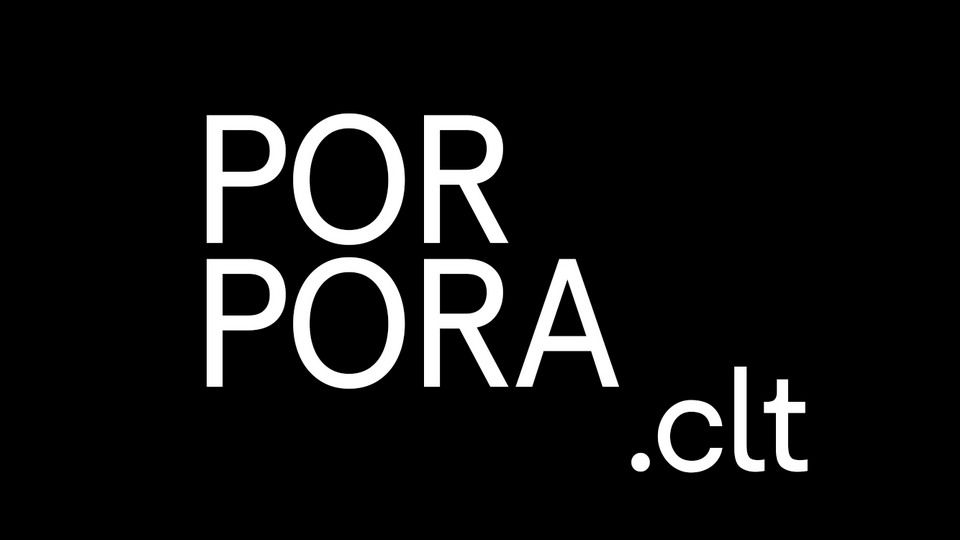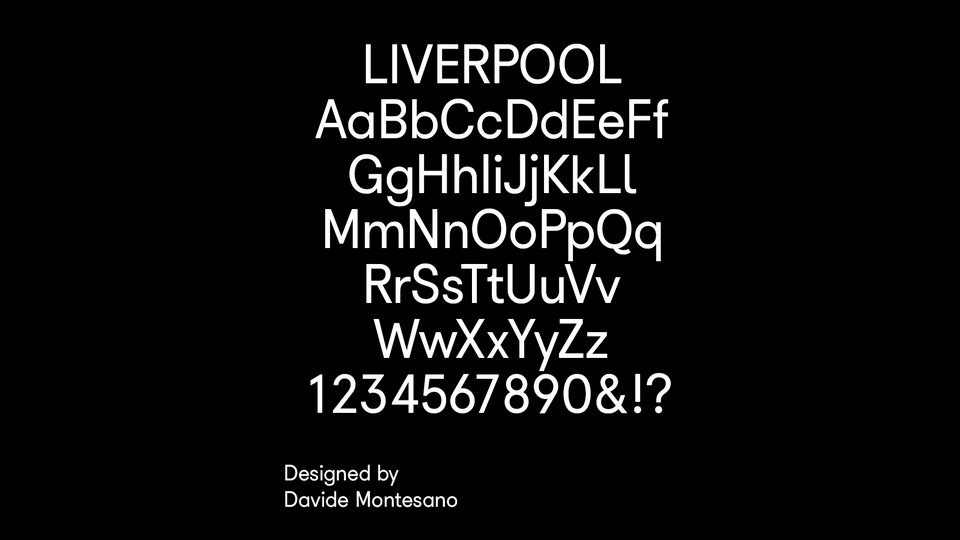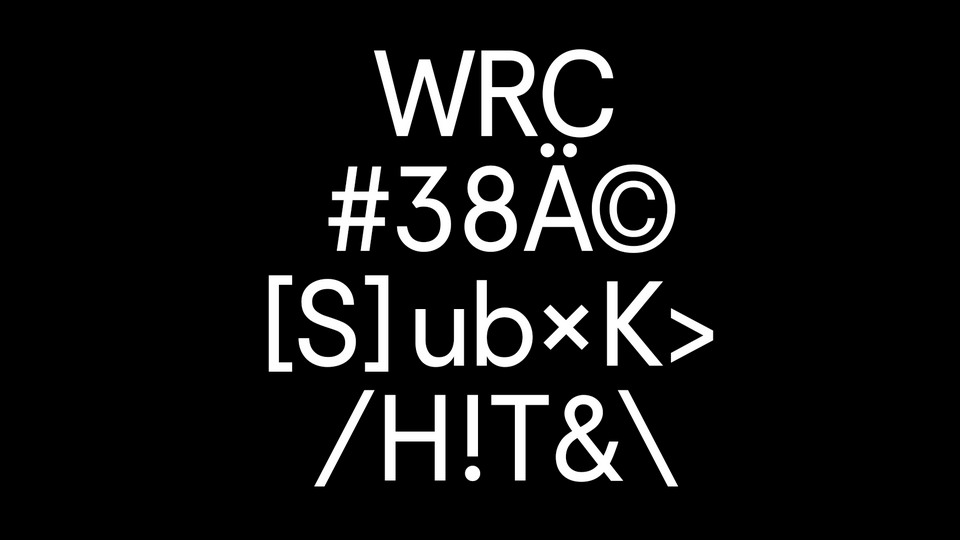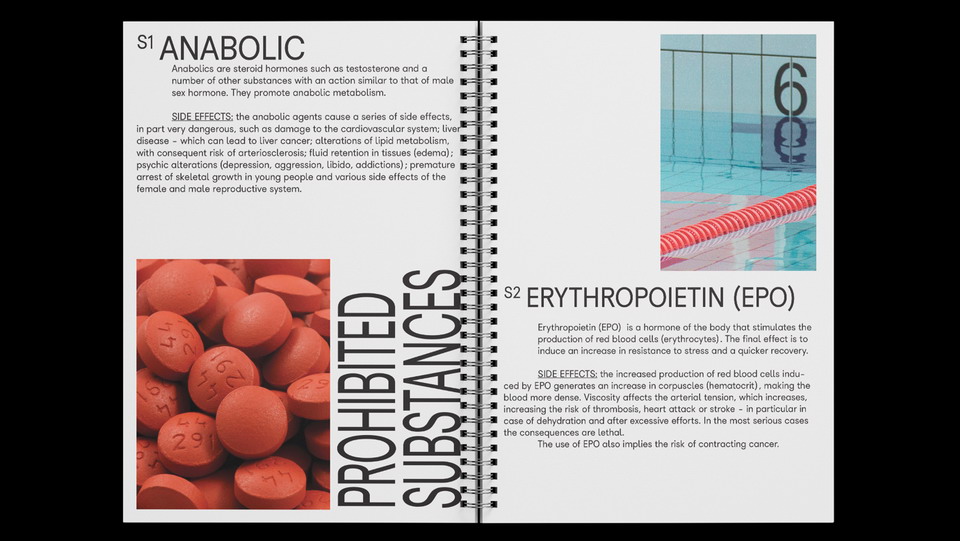
Porpora is a geometric sans serif typeface with elongated ascenders and descenders. It contains a complete set of glyphs, including multilingual support.
Porpora font works best for texts, but also suitable for titles.